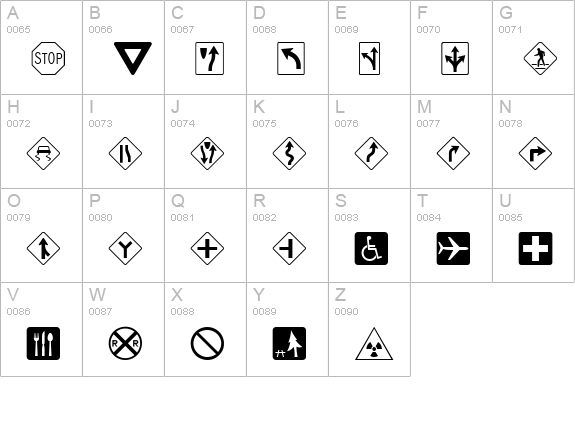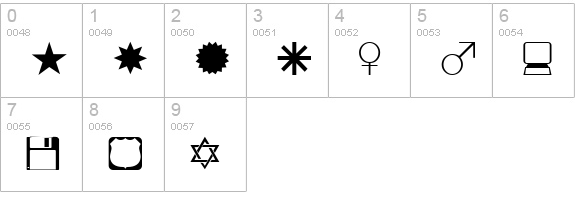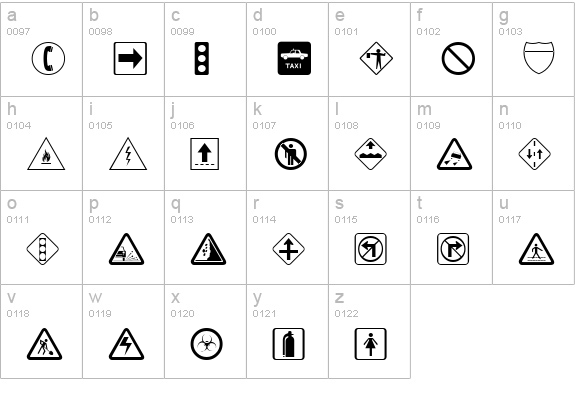
DingDong Signs o' the Times Font Details
DingDong Signs o' the Times font is a whimsical and creative typeface that brings a touch of playfulness to any design project. With its unique characters and charming aesthetics, this font is perfect for adding a fun and quirky element to posters, invitations, and more. The best part? DingDong Signs o' the Times font is available for free download at FontsMarket.com. Whether you're a designer looking to spice up your creations or someone who simply enjoys experimenting with different fonts, this typeface is sure to delight and inspire. Embrace the joy of design with DingDong Signs o' the Times font today!